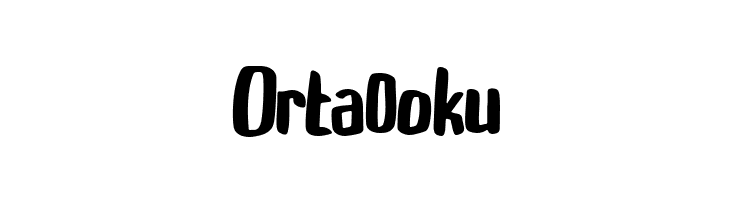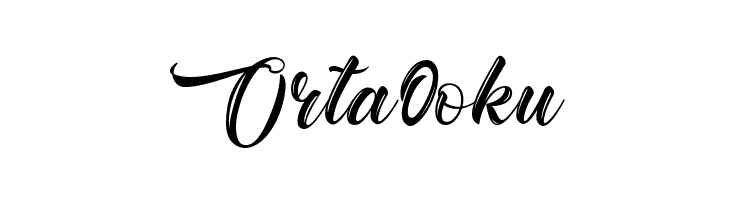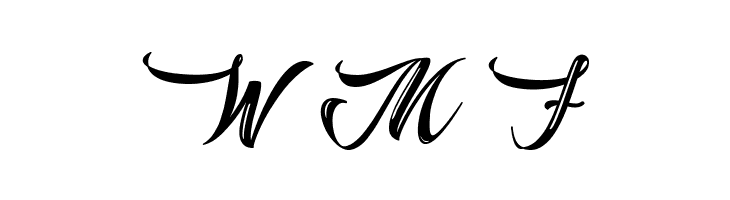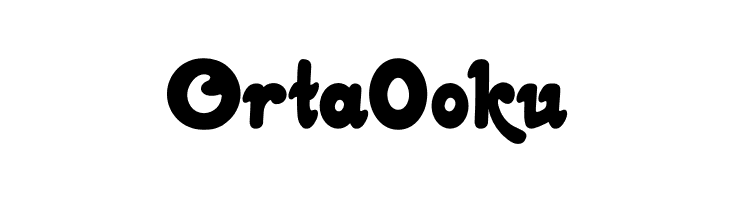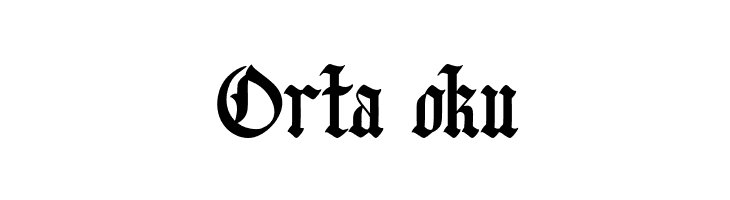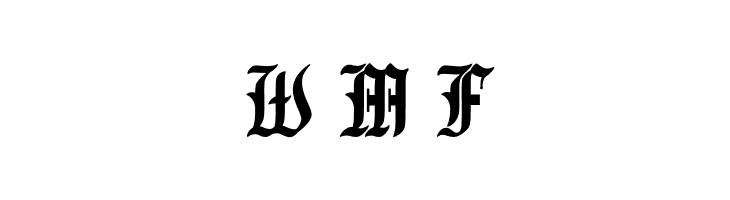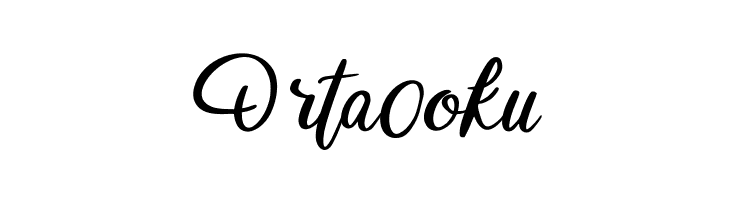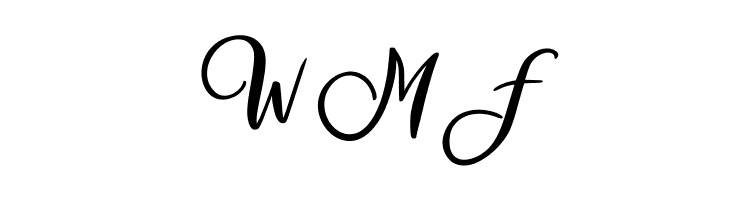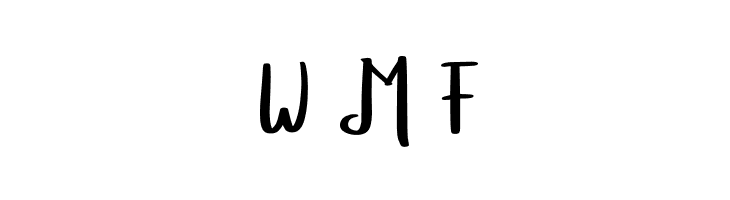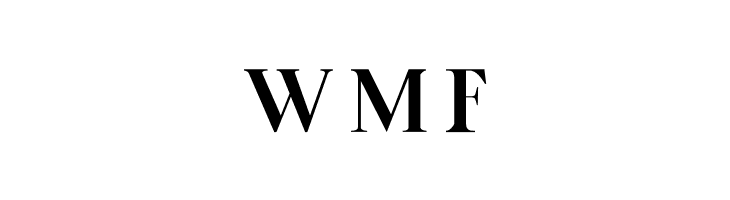
A playful, bold font with rounded edges and a slightly condensed form.
A dynamic, cursive script font with fluid, interconnected strokes and elegant flourishes.
A bold, rounded, and playful font with a retro-modern style.
Illustrative font featuring detailed bug drawings as characters.
An elegant, flowing script font with ornate uppercase and smooth lowercase letters.
Elegant, cursive handwritten script with fluid connections.
A bold, blackletter font with intricate, angular letterforms and high contrast.
A bold, decorative serif font with intricate swirls and embellishments.
An elegant, flowing script font with intricate loops and swirls.